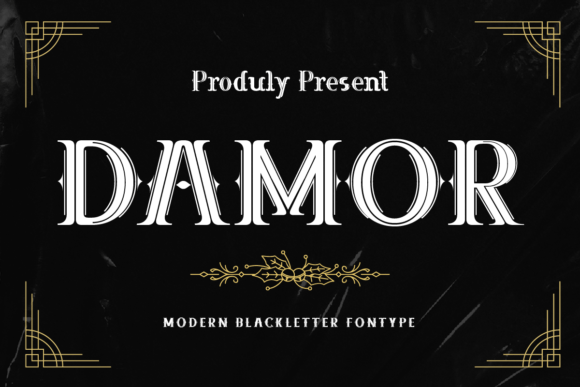
In the realm of typography, where letters dance and words come alive, there exists a font that transcends the ordinary - Damor Font. A serif font family that captivates with its timeless charm and contemporary flair, Damor is the ultimate choice for designers seeking an exquisite touch.
Crafted by the ingenious minds at Aksara Trabas, Damor Font is a masterpiece of digital artistry. Its delicate serifs and graceful curves evoke a sense of nostalgia, while its clean lines and sharp angles lend it a distinctly modern edge. This harmonious blend of vintage and contemporary aesthetics makes Damor suitable for a wide range of design projects, from classic logos and elegant invitations to eye-catching posters and modern websites.
Whether you're a seasoned designer or just starting your creative journey, Damor Font is your perfect companion. Its versatile nature allows it to adapt seamlessly to a multitude of design styles, from traditional to contemporary, from minimalist to ornate. Unleash your creativity and let Damor guide you towards stunning designs that leave a lasting impression.
With Damor Font at your disposal, you'll discover endless possibilities. Create logos that exude timeless sophistication, posters that command attention, and invitations that radiate elegance. Transform your greeting cards into works of art, and bring your digital designs to life with a touch of sophistication. There's no limit to what you can achieve with Damor Font as your trusty typographic ally.
Experience the allure of Damor Font today. Let its classic charm and modern elegance elevate your designs to new heights. In just a few clicks, you'll unlock a world of creative possibilities and embark on a typographic adventure that will leave you spellbound. Embrace Damor Font and watch as your designs blossom into masterpieces.